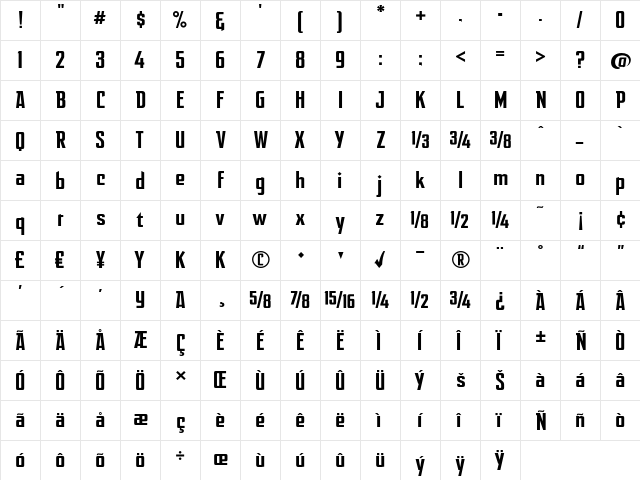
After Disaster Regular
Design Context for After Disaster Typeface
After Disaster is a composed and adaptable typeface that performs quietly and consistently across a wide range of design contexts.